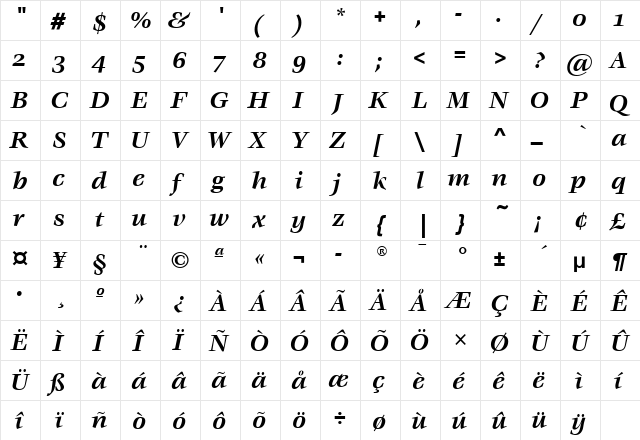
VeljovicOSITC Bold Italic
Design Context for VeljovicOSITC Typeface
VeljovicOSITC is a composed and adaptable typeface that performs quietly and consistently across a wide range of design contexts. The dynamic lean of this cut emphasises speed and emphasis in any layout. Its bold stroke weight gives it real presence on the page.
Pro Tip: Try VeljovicOSITC for annotation and caption copy alongside an upright companion — the contrast in angle creates a dynamic but ordered typographic system.